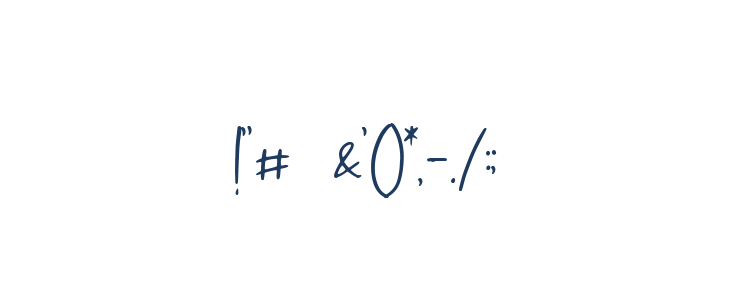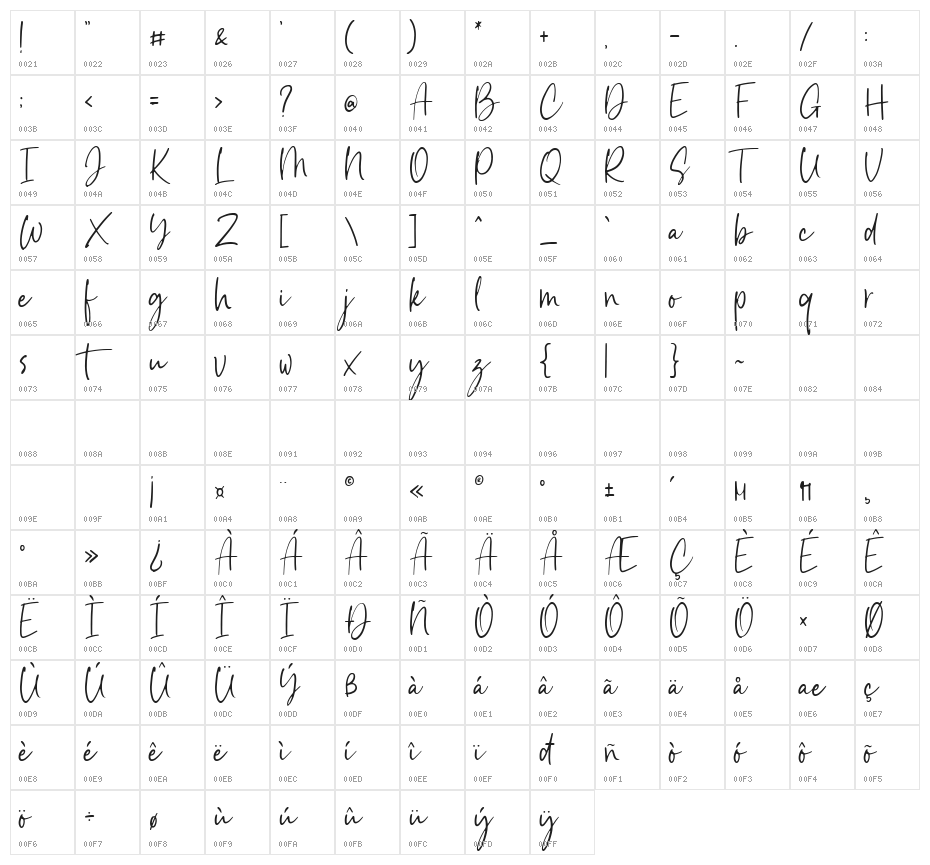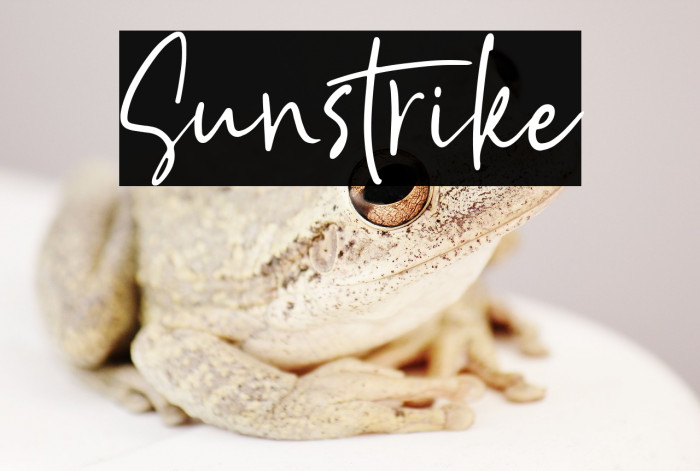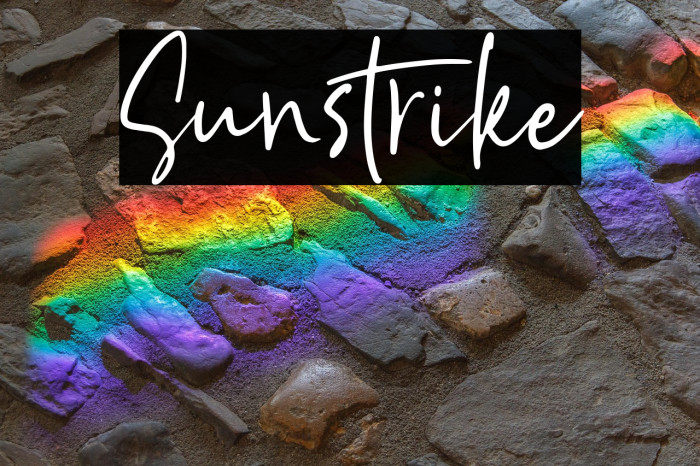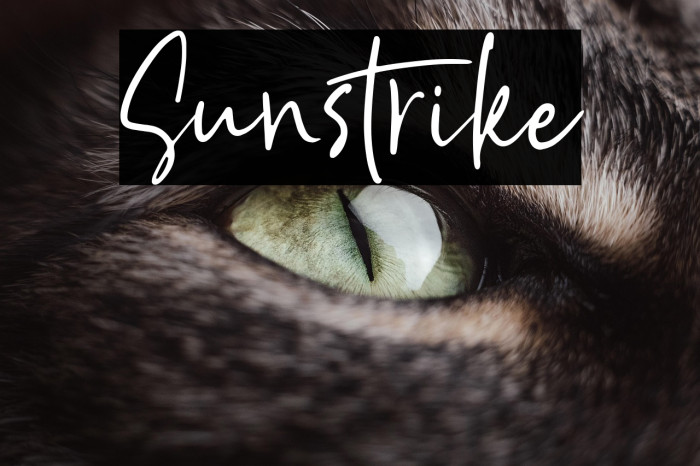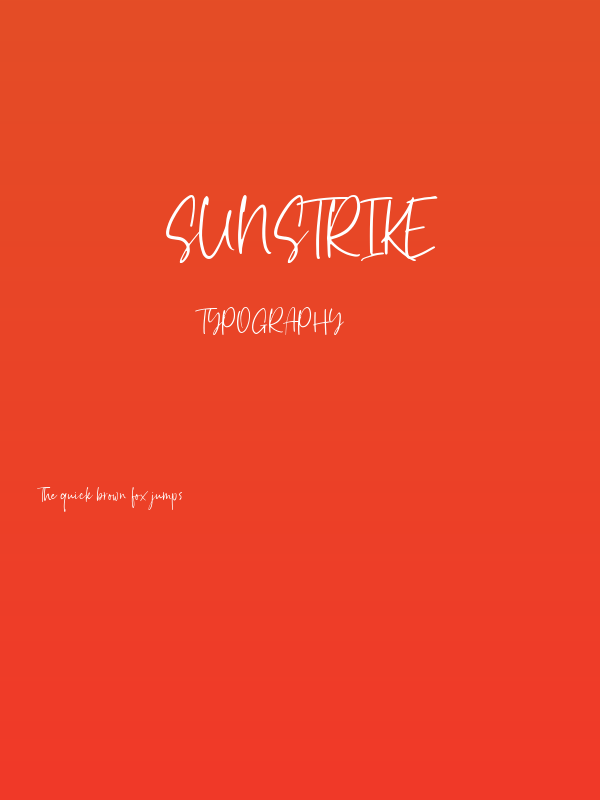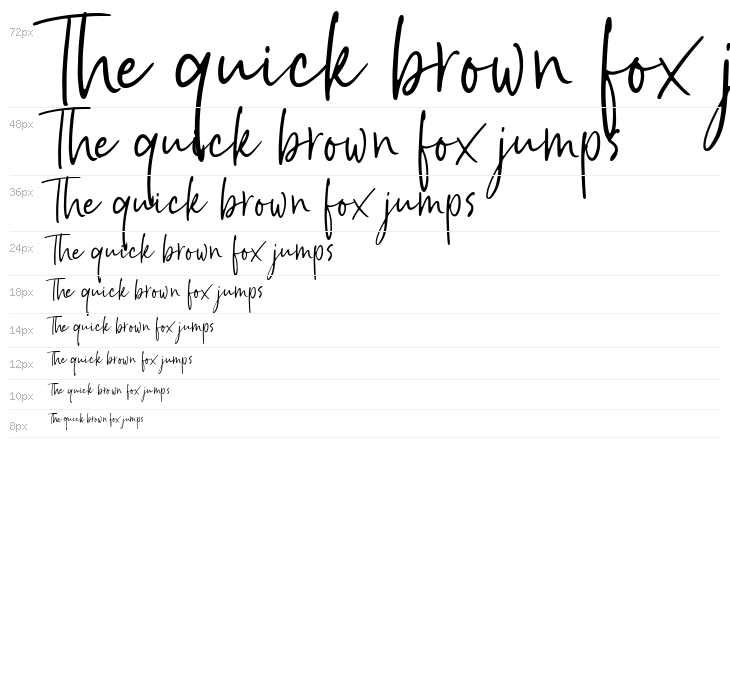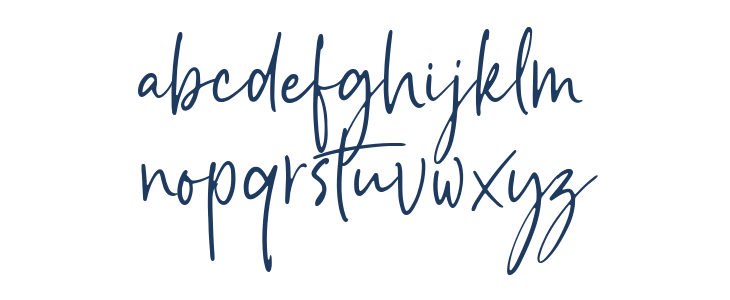
Sunstrike Font
This font features a lively and energetic handwritten style, characterized by its fluid and dynamic strokes. The letters exhibit a playful yet sophisticated flair, with varying line thickness that adds a sense of movement and personality. The uppercase and lowercase letters maintain a consistent style, while the numerals and special characters blend seamlessly into the overall design. The font's informal and casual aesthetic makes it suitable for creative and expressive projects, offering a personal touch that stands out.
| Use Case | Logos, Headlines, Creative projects |
| Proposed Projects | Ideal for greeting cards, invitations, branding, and social media graphics where a personal and creative touch is desired. |